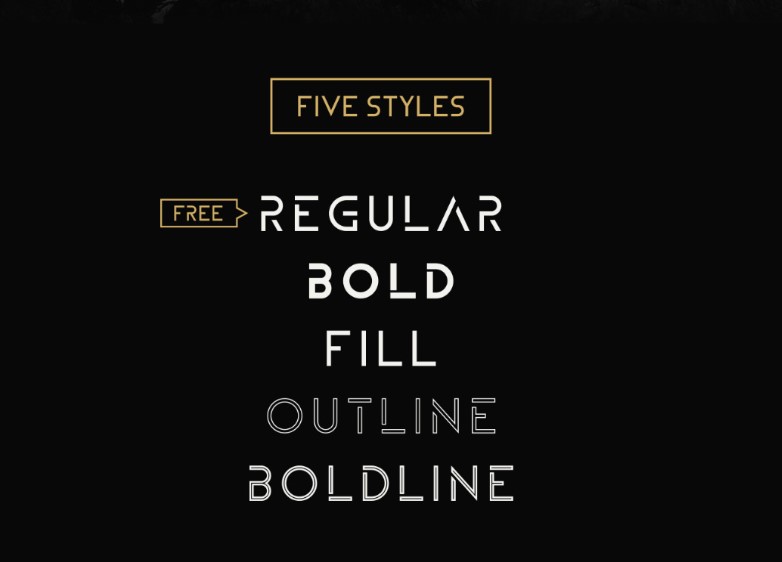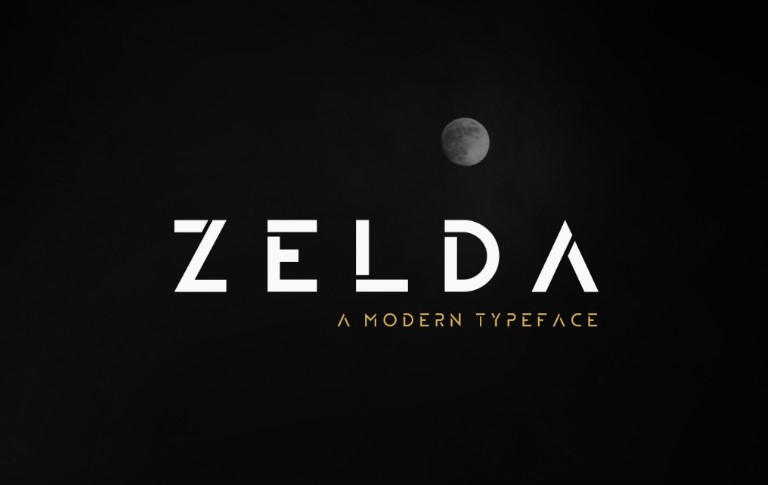
Zelda Font
Zelda Font is widely utilized in MEME designing. This typeface is known for its text generator function and it is also known as a Wild font. Now, the brilliant organizations inc took the all proper reserved for this business enterprise. It’s headquarter located in downtown north.
That is derived from the milkshake font. Consequently, it turns into a present-day producer with a massive patron base. So, at the winning, we wanna communicate approximately the own family used for the designing of its emblem. Zelda Font Free Because of the truth, pretty some types of designers from a number of the typeface and create a few new designs much like back to black font that doesn’t forget about unique from others.